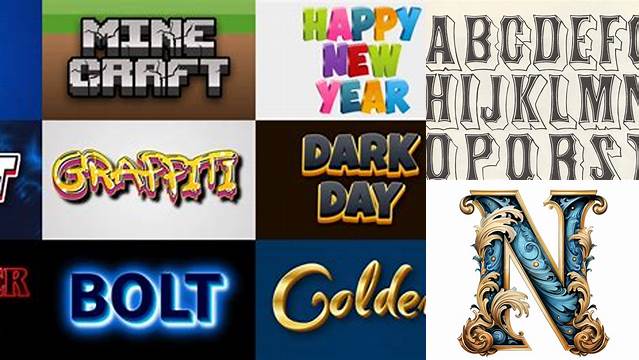
Cool 'N' Fonts: Generate Unique Text Styles!
Hey everyone! Ever wished you could jazz up your text with some super cool fonts? Maybe you're crafting a social media post, designing a logo, or just want to send a fun message to your friends. Well, you're in luck! This article dives deep into the world of the "n in different fonts generator," helping you discover how to create stunning text variations with ease. We'll explore various online tools, discuss the technical aspects, and give you some neat tips and tricks to become a font-styling pro. Get ready to transform your ordinary 'n's into extraordinary ones!
H2: Unleashing the Power of an 'N' Font Generator
Alright, let's kick things off by talking about what an "n in different fonts generator" actually is. In essence, it's a digital tool designed to transform the standard letter 'n' into a variety of different styles, fonts, and designs. These generators use a combination of Unicode characters, special symbols, and font libraries to create a wide array of text variations. The best part? You don't need to be a design expert or have any coding knowledge to use them! Most of these generators are incredibly user-friendly, allowing you to simply type in your text and instantly see a whole bunch of different font styles for the letter 'n' and other characters. This is incredibly useful for spicing up your online profiles, creating eye-catching social media content, or even personalizing digital documents. The generated text can be copied and pasted into almost any platform that supports Unicode characters, making it a versatile tool for all sorts of creative projects.
Using an "n in different fonts generator" offers a fantastic way to add personality and flair to your digital communication. Think about it: instead of the plain old 'n,' you can use a fancy, cursive 'n,' a bold, blocky 'n,' or even an artistic, symbol-filled 'n'. This immediate transformation can significantly impact the visual appeal of your text. It can grab the reader's attention and set your content apart from the sea of generic text. Plus, these generators can be a real time-saver. Manually creating each font style would be incredibly tedious and time-consuming. With these tools, you can explore tons of fonts in seconds, giving you plenty of options to choose from and experiment with. Experimenting with different fonts can also help you define and refine your brand's visual identity, helping your content to better resonate with your target audience.
Another great advantage of using an "n in different fonts generator" is the freedom of expression it provides. They aren't just limited to the letter 'n'; usually, you can change the entire word or phrase. You can use them to create unique usernames, generate stylish headings for your blog posts, or even design custom text for your digital art projects. Whether you are a seasoned content creator or just someone looking to add a little pizzazz to your messages, these generators offer a creative and accessible way to express yourself. The tools are constantly being updated with new fonts and styles, which means there is always something new to try. These generators are a valuable resource for anyone looking to add a bit of style to their text and make their content stand out.
H2: Exploring the Best 'N' Font Generators Online
Alright, let's dive into some of the coolest "n in different fonts generators" available online. The internet is packed with options, so it's good to know where to start. One of the most popular choices is often the classic Unicode Text Generator, or similar alternatives. These websites are typically super simple to use – just enter your text, and boom, you have a huge range of font styles to choose from. They usually offer a wide variety of fonts, from fancy calligraphy to bold, modern styles, often using Unicode characters to create unique letterforms. These generators are perfect for simple needs and quick transformations, which is the bread and butter of many users. The simplicity makes it an excellent choice for beginners, and the wide selection of styles ensures that you'll find something that suits your needs. These can also be incredibly fast, allowing you to generate and copy text in a matter of seconds.
Another useful approach is to explore websites dedicated to typography, such as font generators, which usually offer more advanced options and customization features. They might let you adjust things like the font size, color, and spacing, as well as provide options for downloading fonts or integrating them into your design projects. Some of these resources also offer a more in-depth look at font types and styles, so you can understand the differences between serif, sans-serif, and other font categories. This is super helpful for anyone who wants to have a bit more control over the end results. The level of customization can be a great benefit for designers and people who are serious about typography.
Many social media platforms and content creation tools have built-in font options, and integrating these with an "n in different fonts generator" can create some killer effects. Even if the built-in options aren't as extensive as some dedicated generators, they still give you some flexibility for your text. This can be a great way to test out different font styles before committing to using a generator or for when you need to make quick edits or updates. Many online tools are designed to be compatible with social media, so you can quickly generate text and copy it straight into your posts. Don't be afraid to test out several generators and explore various combinations to see what looks best to you. After all, finding the right font style for your needs is all about personal preference and the message that you are trying to convey.
H3: User-Friendly 'N' Font Generator Features
When it comes to "n in different fonts generators," a user-friendly interface is crucial. Look for generators with a clear and intuitive layout. Ideally, the text input box should be easy to find, and the generated font options should be displayed in a clean, organized manner. This makes the entire process smoother and more enjoyable. Nobody wants to spend ages navigating a confusing website, trying to find the right settings. The goal is to get stylish text fast. The best generators will provide an instant preview of what your text will look like in different fonts. This helps to quickly identify which styles you like and which ones don't quite fit your needs.
Another important aspect to consider is the variety of font styles offered. A great generator will have a wide range of options to choose from, including classic, modern, and more decorative styles. This ensures that you have plenty of choices to match your specific needs and personal preferences. Some generators also allow you to customize your text further, such as adjusting the font size, color, and spacing. This extra level of control can be helpful for creating unique and eye-catching text. The ability to fine-tune the details can make your text really stand out. Many generators also provide features to help you copy and paste your text easily. This might include a dedicated copy button or a simple click-to-copy function. This saves you time and prevents the need to select and copy your text manually, which can be a real drag.
Compatibility is important too! Ensure that the generator's output is compatible with your desired platform, whether it's a social media site, a word processor, or a design tool. Most generators use Unicode characters, which are widely supported, but it's always good to double-check. It's also helpful to ensure that the generator works well on different devices, such as desktops, tablets, and smartphones. This allows you to create and share your text from anywhere. A generator that's optimized for mobile use is a huge plus. Look for responsive designs that automatically adjust to the screen size of your device. Finally, it's crucial to be aware of any potential limitations or terms of use associated with the generator. Some fonts may have specific licensing restrictions, and you should always respect these limitations. Always check the generator's guidelines to avoid any potential legal issues.